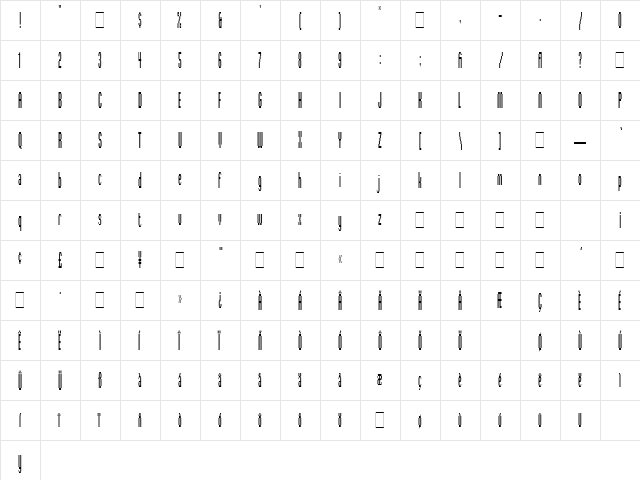
Digitek LET Plain
Design Context for Digitek LET Typeface
Digitek LET channels digital-age aesthetics through its sharp, structured letterforms — ideal for brands that want to signal innovation.